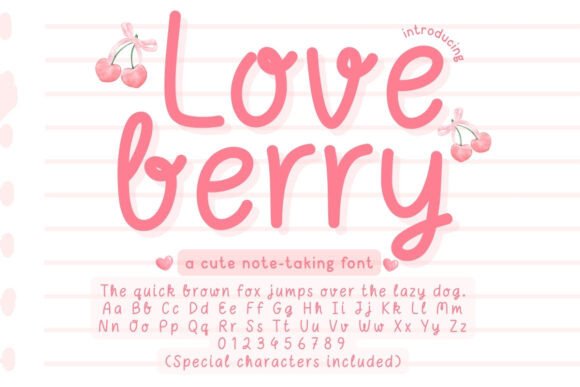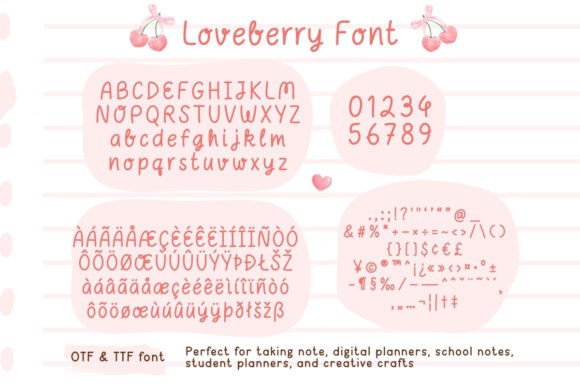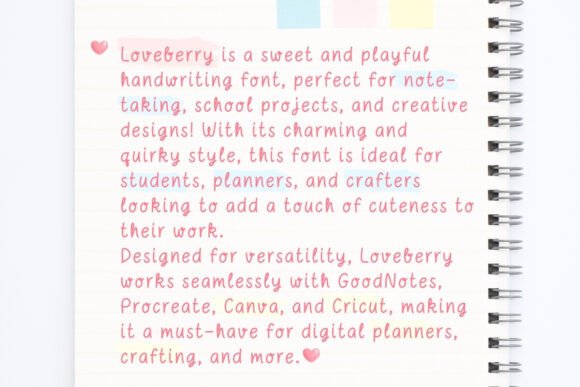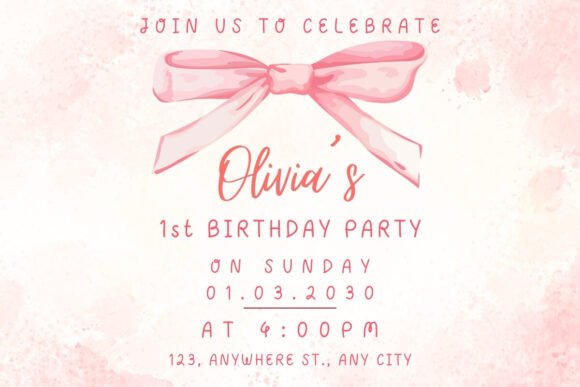
Loveberry Font: Cute Handwritten Typography for Planners & DIY Projects
About the Loveberry Font
We are excited to introduce Loveberry Font, a must-have typeface for any serious designer. Loveberry is a sweet and playful handwriting font, perfect for note-taking, school projects, and creative designs! With its charming and quirky style, this font is ideal for students, planners, and crafters looking to add a touch of cuteness to their work.
Loveberry’s playful energy makes it ideal for branding projects targeting young audiences or products with a whimsical aesthetic, such as children’s books, stationery, or sweet treats packaging. Headlines, short quotes, and logos benefit from its charming character. However, its informal style is less suitable for lengthy body text or applications requiring high readability, like websites or user interfaces.
Pairing Loveberry with a clean sans-serif like Open Sans for body text creates a balanced contrast, allowing the playful script to shine in headlines or accents. For a more sophisticated feel, consider pairing it with a classic serif font such as Garamond, providing a touch of elegance that complements Loveberry’s quirkiness. Avoid pairing it with other highly decorative or script fonts to prevent visual clutter.
Loveberry’s overall personality is best described as cheerful and friendly, offering a lighthearted and approachable feel. It’s not suitable for projects needing a professional or serious tone.
Loveberry Font Usage Examples
Loveberry Font Example